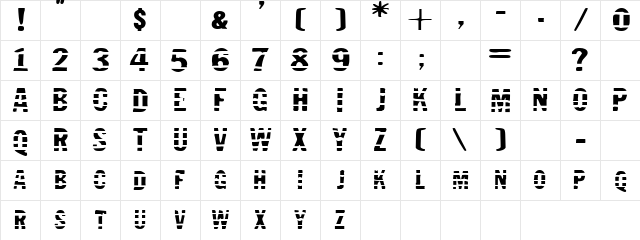
Zebra Strips Regular
Design Context for Zebra Strips Typeface
Zebra Strips is a composed and adaptable typeface that performs quietly and consistently across a wide range of design contexts.